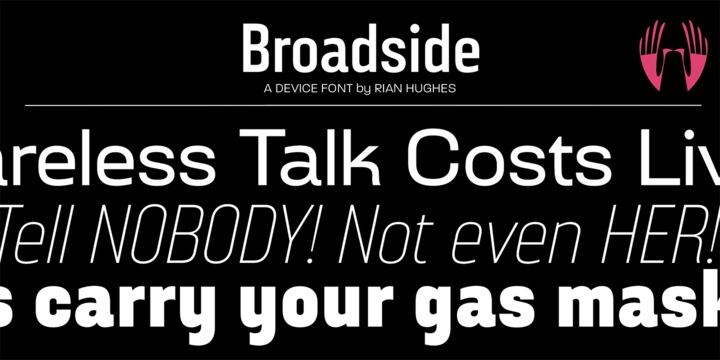
Broadside Font
Broadside Font is perfect for various design applications including maritime museum signage, nautical restaurant branding, sailing club materials, naval history exhibitions, pirate-themed entertainment venues, seafaring adventure promotions, maritime heritage festivals, coastal tourism campaigns, sailing expedition logos, and authentic naval tradition celebrations. This commanding typeface excels in projects requiring naval authority and maritime heritage that captures the bold spirit of seafaring adventures and the time-honored traditions of naval excellence.
What makes Broadside Font so exciting is its powerful embodiment of naval authority and maritime tradition through letterforms that suggest the commanding presence of historical warships and the unwavering courage of seafaring warriors. The font features bold construction that mirrors ship timber and naval architecture, strong proportions that communicate maritime authority and seaworthy reliability, and distinctive character details that evoke ship manifests, naval proclamations, and the proud traditions of maritime service. Its distinctive naval character and seafaring authenticity make it perfect for maritime brands seeking to communicate heritage, adventure, and the enduring appeal of naval tradition and oceanic exploration.
Broadside Font family includes multiple maritime weights and naval variations that enhance its versatility for different seafaring applications. Each style maintains the font's signature naval character while providing options for various maritime design approaches. The family also features nautical decorative elements, maritime symbols, and naval ornaments that can be combined with the letterforms to create cohesive seafaring heritage design systems.
Whether you're developing maritime brands, naval heritage projects, or seafaring communications, Broadside Font Free Download provides commanding typography that captures the spirit of naval tradition and celebrates the courage and skill required for oceanic adventures and maritime excellence. This typeface transforms ordinary communications into authoritative statements that promise authentic maritime experiences and naval heritage. The font's seafaring appeal makes it particularly effective for maritime museums, sailing organizations, and nautical tourism businesses targeting audiences who appreciate naval history and oceanic adventure.
Broadside Font stands out by delivering genuine maritime authenticity that feels connected to real naval traditions rather than artificial nautical theming. Its carefully crafted naval proportions and maritime details ensure that designs feel authentically connected to seafaring heritage and naval excellence. From maritime museum branding to sailing club communications, this font provides designers with tools to create communications that celebrate naval tradition and inspire appreciation for maritime heritage through bold, navy-inspired typography that commands respect on any sea.